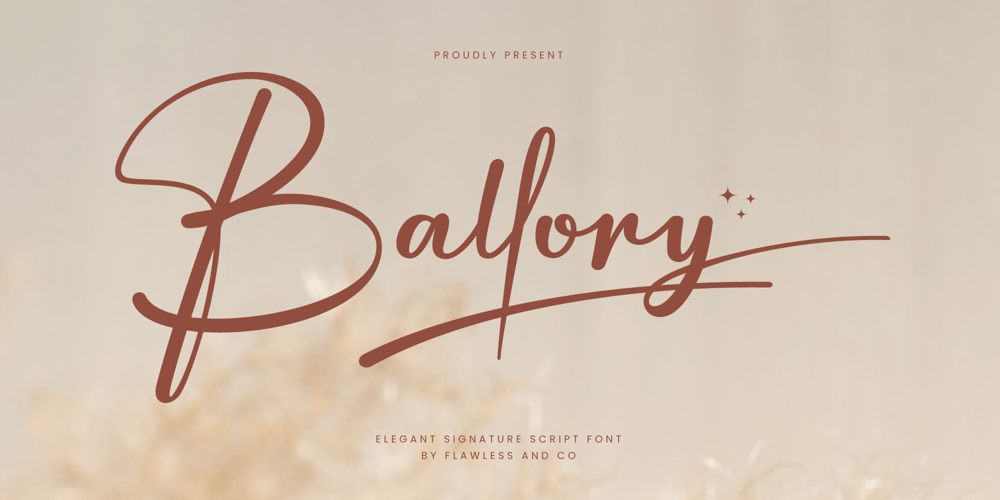
Ballory Font Family was designed by Achmad Yani and published by Flawlessandco. Ballory contains 1 styles and family package options. Introducing “Ballory” – An Elegant Signature Script Font. Unveil the essence of refined personal style with “Ballory,” an exquisite signature script font that radiates elegance and sophistication.There’s some connected letters and some alternates that suitable for any graphic designs such as branding materials, t-shirt, print, business cards, logo, poster, t-shirt, photography, quotes, etc.This font support for some multilingual. Also contains uppercase A-Z and lowercase a-z, alternate character, numbers 0-9, and some punctuation.If you need help, just write me! Thanks so much for checking out my shop!